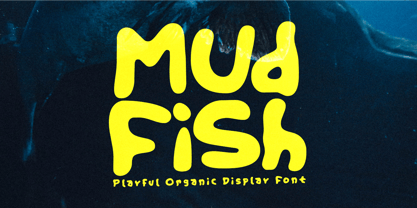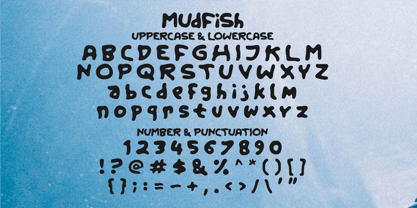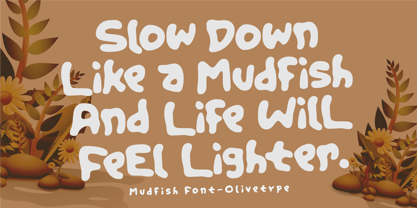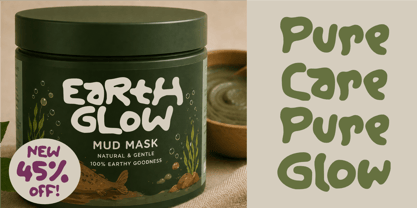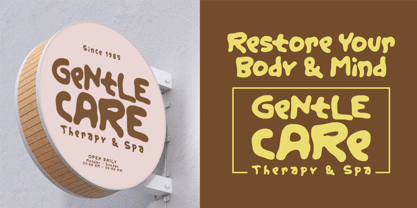
Mudfish
by Olivetype
The Mudfish Font Family was designed by Nurul Hidayani and published by Olivetype. Mudfish contains 1 styles. More about this family
Mudfish is a playful organic display font inspired by the soft, flowing shapes of nature. Featuring bold, rounded, hand-drawn letterforms with a bubbly personality, this font brings warmth, creativity, and a friendly touch to every design. Its unique handcrafted style makes it perfect for projects that need a fun, approachable, and memorable look.
Whether you're creating logos, children's products, organic skincare packaging, spa branding, food labels, book covers, posters, social media graphics, merchandise, or playful business identities, Mudfish delivers a charming aesthetic that stands out while remaining highly readable.
Designed with smooth curves and an authentic handmade feel, Mudfish is ideal for brands that embrace creativity, wellness, nature, and joyful storytelling.
Designers: Nurul Hidayani
Foundry: Olivetype